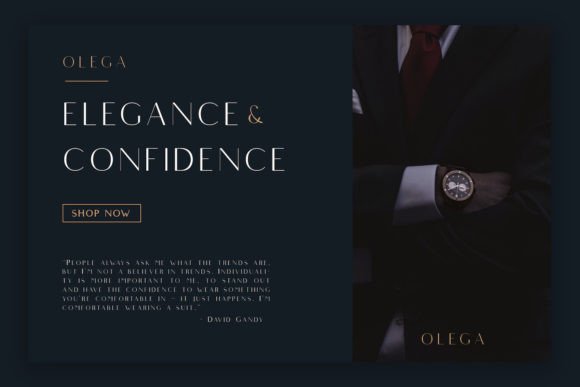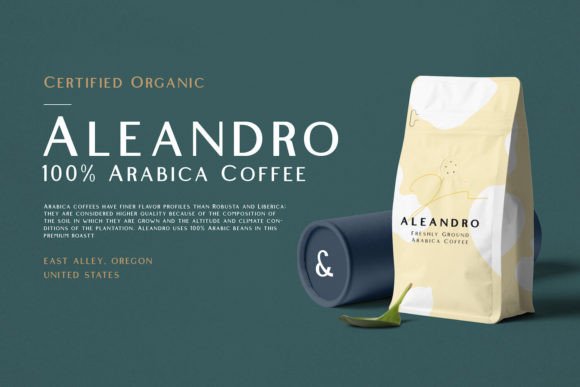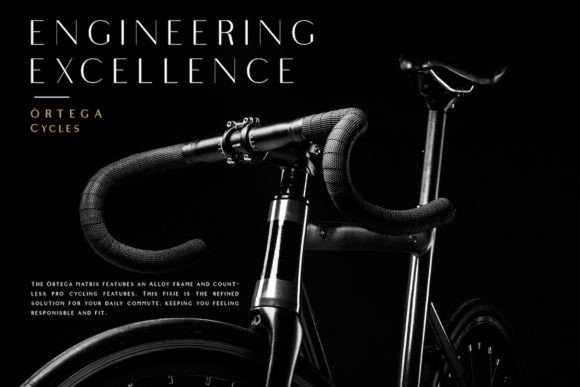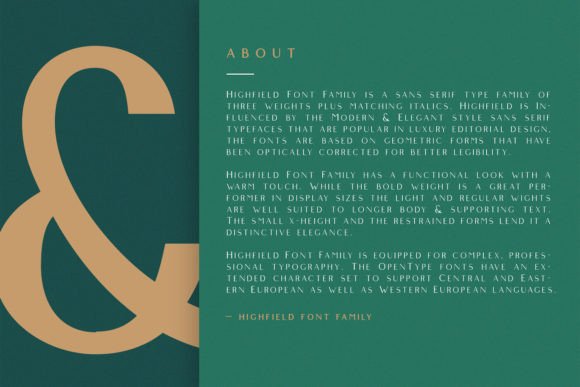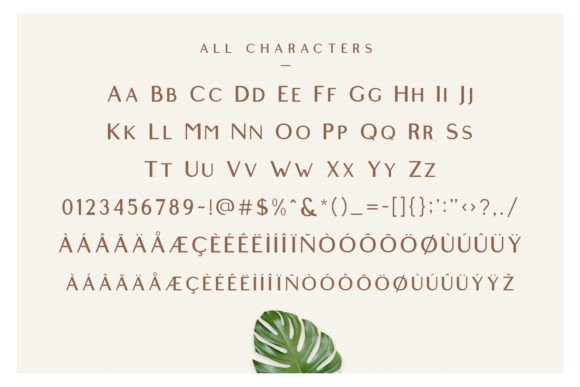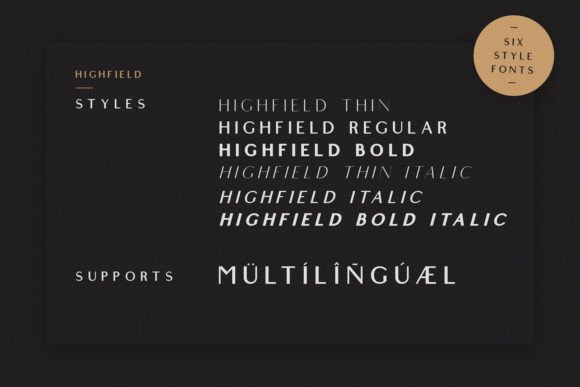
Introduction to Highfield Font Font
Fonts play a crucial role in design, and the Highfield Font font is a typeface that brings both character and versatility to any project. Whether you’re working on a branding project, a website, or a print design, the Highfield Font font offers a unique style that can elevate your work.
Highfield is a luxury sans serif type family of three weights plus matching italics.
Itβs influenced by the modern and elegant style sans serif typefaces that are popular in high class editorial design The fonts are based on geometric forms that have been optically corrected for better legibility.
Key Features of Highfield Font Font
Why Choose Highfield Font Font?
The Highfield Font font is more than just a typeface β it’s a design tool that helps you communicate your message with style and clarity. Its unique character set and versatile design make it suitable for a wide range of applications, from elegant invitations to bold headlines.
With its carefully crafted letterforms and balanced proportions, the Highfield Font font ensures readability and visual appeal across all mediums.
What makes Highfield Font font special?
The Highfield Font font stands out with its unique design, exceptional readability, and versatility across various design applications.